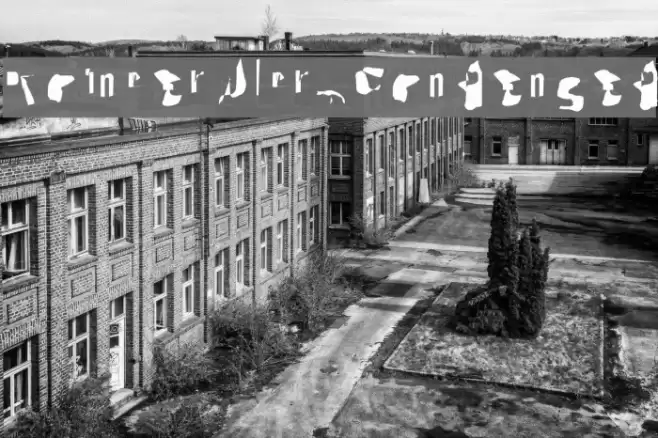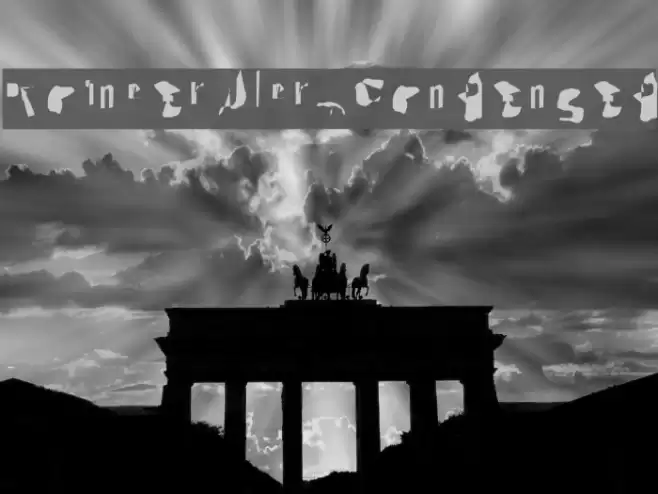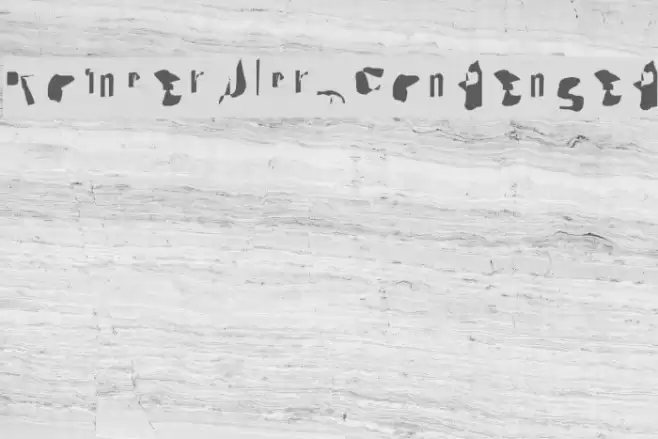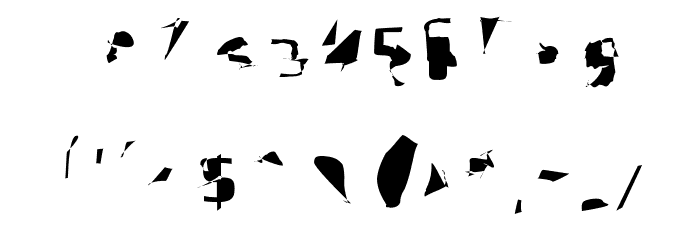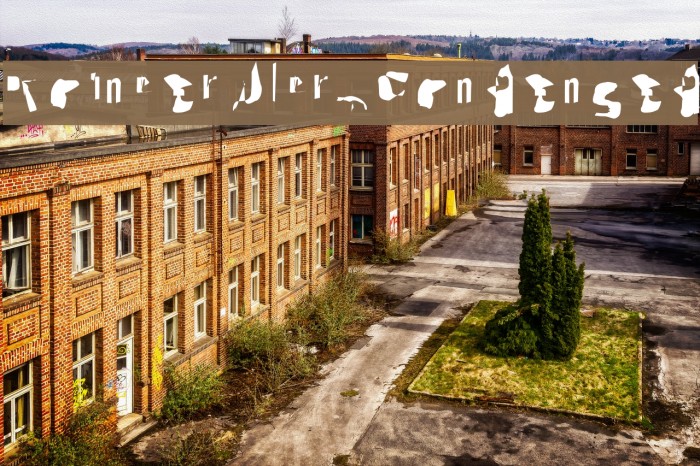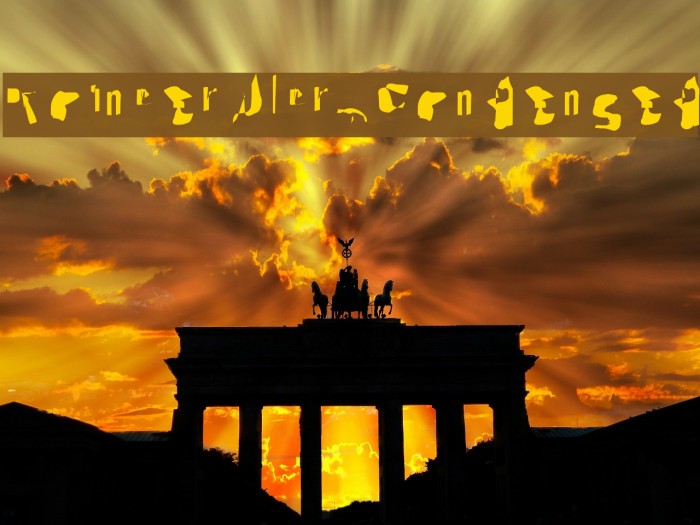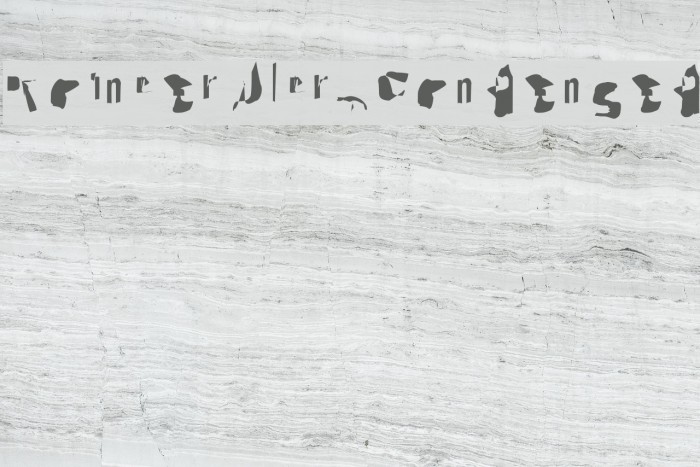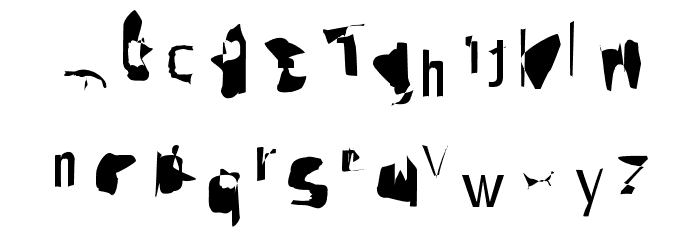
Pointer UltraCondensed Font
Pointer UltraCondensed Description
This font features an ultra-condensed and highly abstract design, characterized by sharp angles and fragmented shapes. The letters appear as if they are constructed from torn paper or shattered glass, giving it a chaotic yet artistic appearance. The uppercase and lowercase letters maintain a consistent style, with each character exhibiting unique distortions and irregularities. The numbers and special characters follow the same fragmented aesthetic, making the font suitable for projects that require a bold, unconventional look. Its distinct style makes it ideal for artistic and avant-garde applications.
An ultra-condensed, abstract font with sharp, fragmented shapes from Uncategorized fonts.
- Proposed Projects: Ideal for album covers, modern art posters, experimental design projects, and edgy branding.
- Character Spacing: Tight
- Overall Style: Modern, Avant-garde
- Use Case: Headlines, Artistic projects, Branding